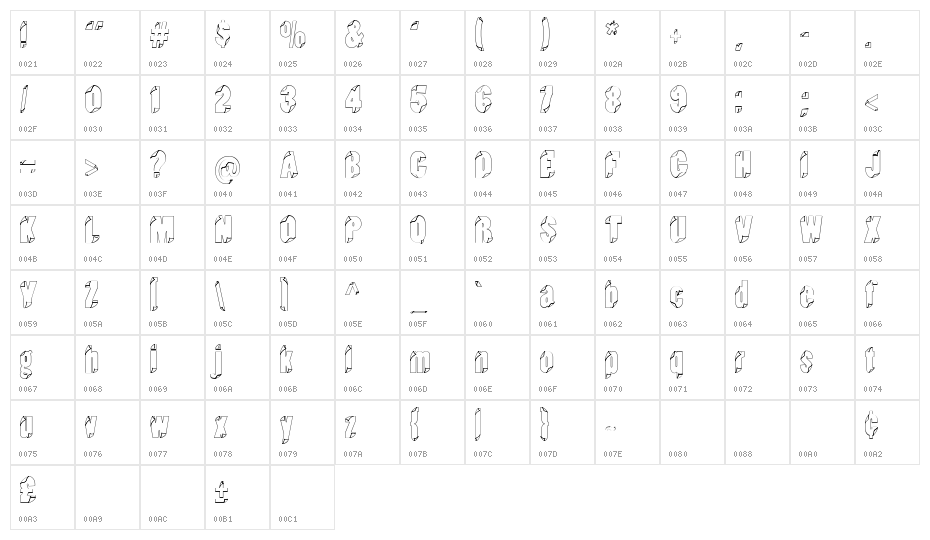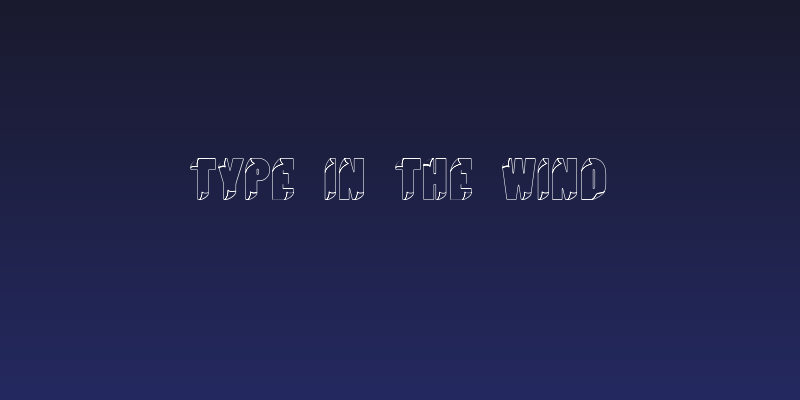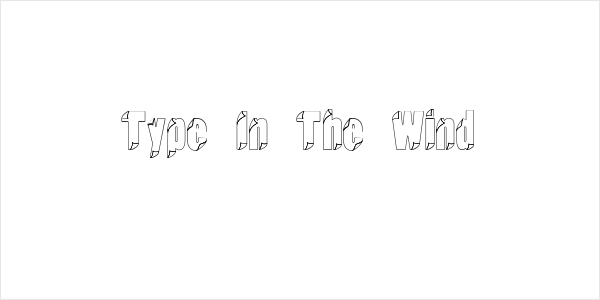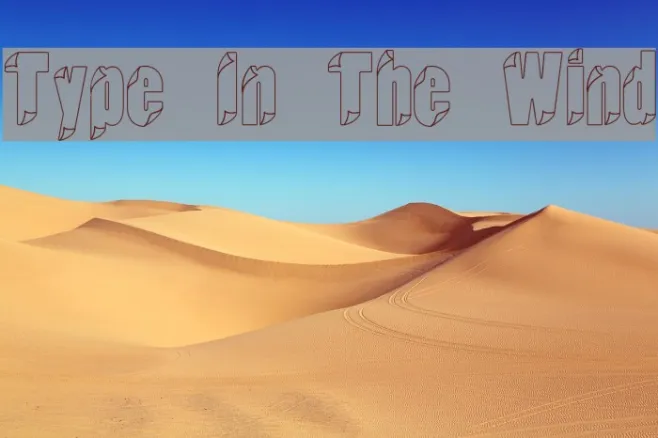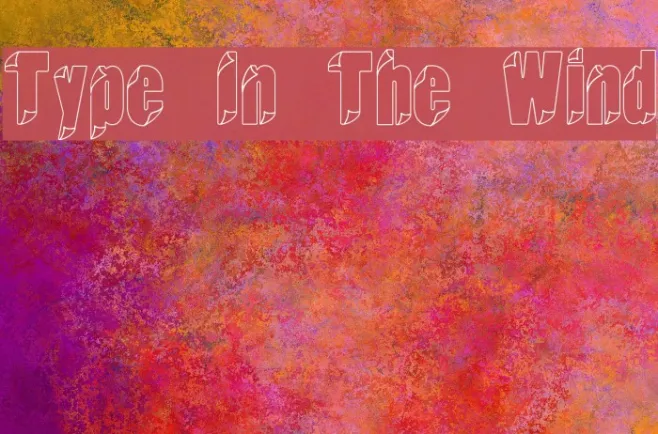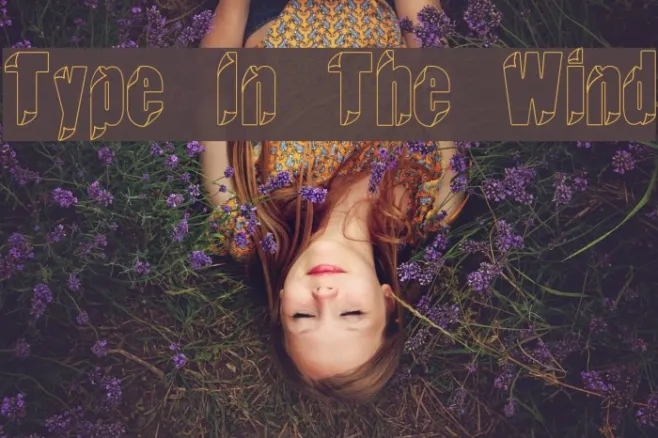
Type In The Wind Font
Type In The Wind Description
This font features a bold, decorative style with a unique 3D effect that gives the impression of letters being twisted or caught in the wind. The characters are outlined, with inner sections appearing as if they are folded or bent, creating a dynamic and playful visual impact. The uppercase and lowercase letters maintain a consistent style, with the numbers and special characters following suit. This font's distinct appearance makes it stand out, ideal for eye-catching designs.